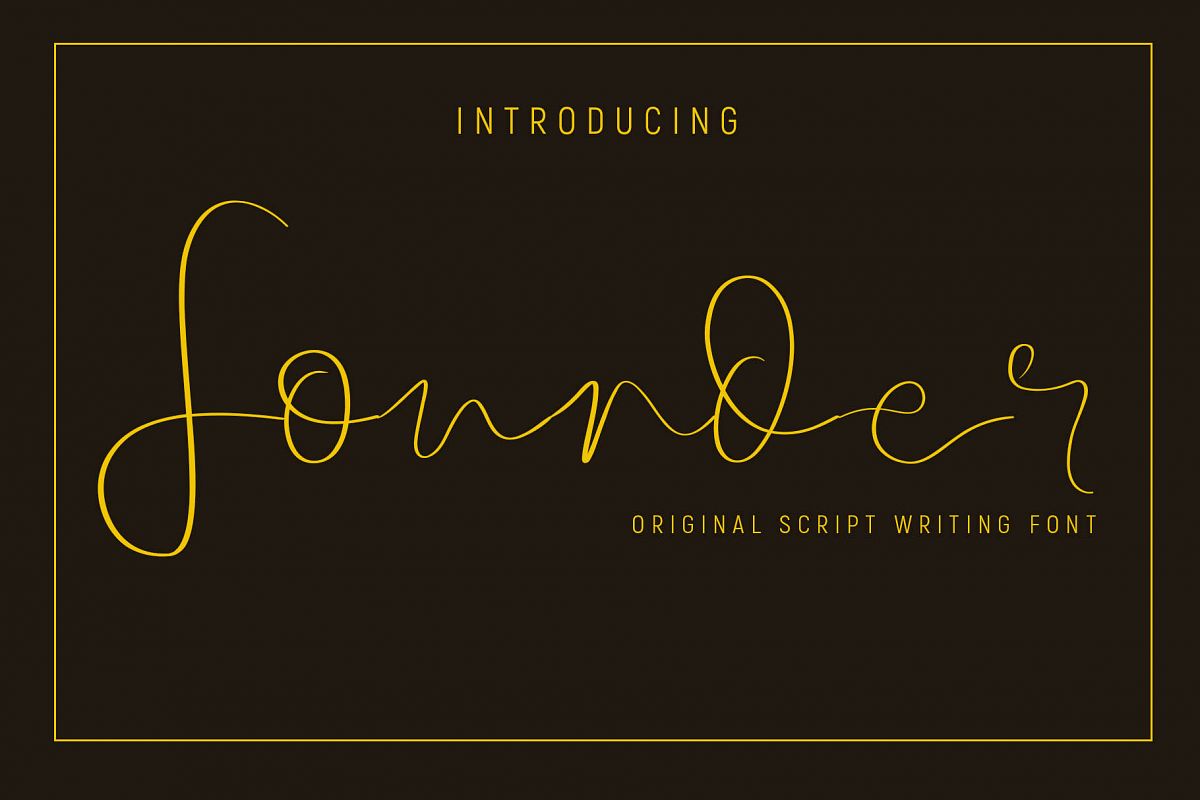
Hello there, Here is a new script font from us called Founder Font. Its's perfect for you to give your design an authentic touch. this is an original hand writing font so you can also use this for any logo or signature design.
GLYPS
- All capital and lower alphabet
- 5 standard ligature
- 10 alternate glyps